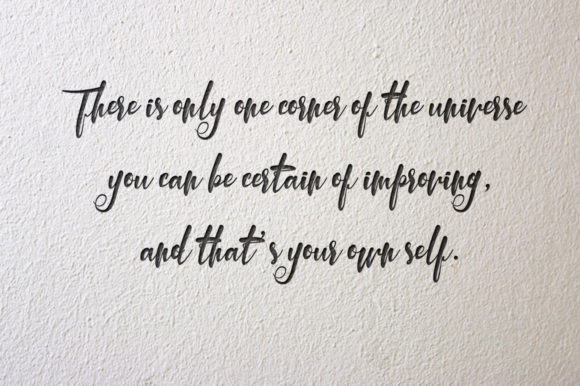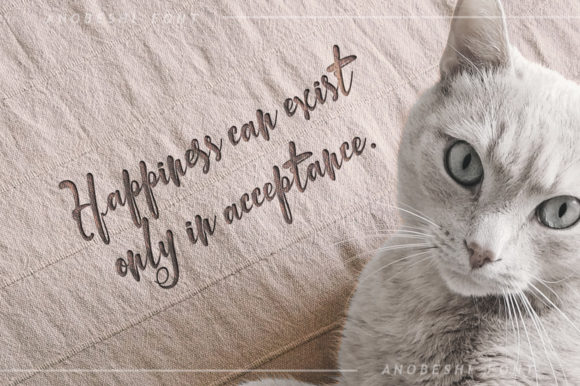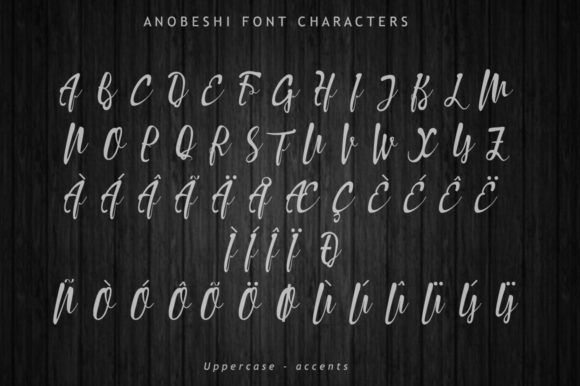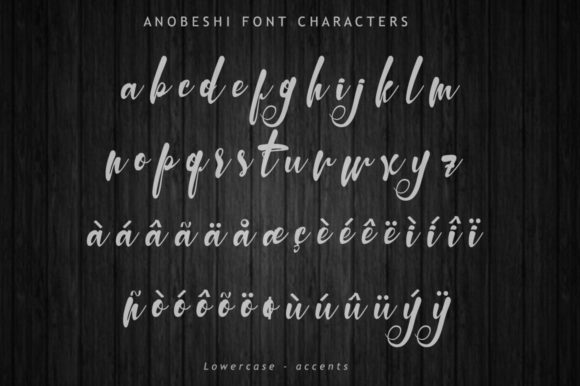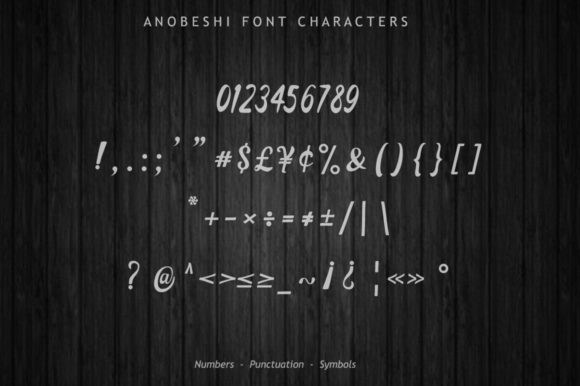
The Anobeshi Font: A Creative’s New Best Friend
I’ll never forget the time I was working on a project for a client who wanted a font that was both casual and artistic. I had spent hours scouring the internet for the perfect one, but nothing seemed quite right. That was until I stumbled upon the Anobeshi font. With its beautiful, flowing curves and effortless charm, it was love at first sight! In this article, I’ll share my experience with Anobeshi, its features, and how to make the most of it in your creative projects.
An Honest Review of Anobeshi
- ✨ Artistic curves that add a touch of elegance to any project
- ✅ Excellent for creative projects, such as branding, packaging, and advertising
- 💫 Works beautifully for both digital and print applications
- 🎨 Highly versatile and can be used for a wide range of design styles
While Anobeshi is an amazing font, there are a few things to keep in mind:
- 🤔 Some users may find the font a bit too casual for formal projects
- ⚠️ May not work well with very small font sizes, as some details may get lost
The Story Behind Anobeshi
Anobeshi was designed with the goal of creating a font that’s both artistic and accessible. The designer wanted to create a font that would be perfect for creative projects, while also being easy to read and use. With its beautiful curves and elegant lines, Anobeshi has become a popular choice among designers and crafters.
| Font Name | Anobeshi Font |
| Author | leamsign |
Q: What is Anobeshi font?
Anobeshi is a casual script font with artistic curves, perfect for creative projects.
Q: Is Anobeshi suitable for formal projects?
While Anobeshi is a beautiful font, it may not be suitable for very formal projects. However, it can work well for formal projects that require a touch of elegance and sophistication.
Q: Is Anobeshi available in different languages?
Anobeshi may not be available in all languages, but it does support a wide range of characters and glyphs.